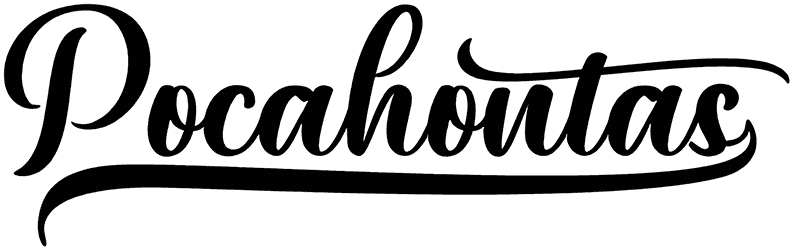
Pocahontas Font
A classic font such as this item will be a ravishing pickup for a design that you want to be delightful and realistic. This calligraphy font would throw a smooth vibe into your layout. Pocahontas has almost full characters, and you can use it for different designs, like a Christmas postcard.